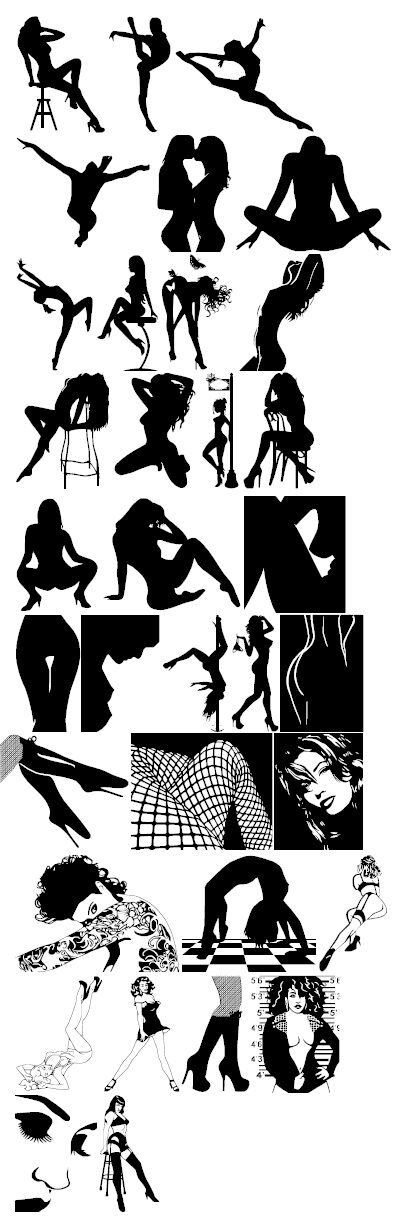
Beauty Marks, created by Bobistheowl for Metaphase Brothel Graphix in 2012, is a free human silhouette dingbat font featuring posed female figures. The figures shift through seated, kneeling, dancing, and pole-work poses.
Digital graphics can use the figures to establish an adult cabaret or nightlife theme, with related uses in event flyers and club merchandise. Each symbol can become part of the illustration itself, serving as a dancer, pinup, or compact emblem.